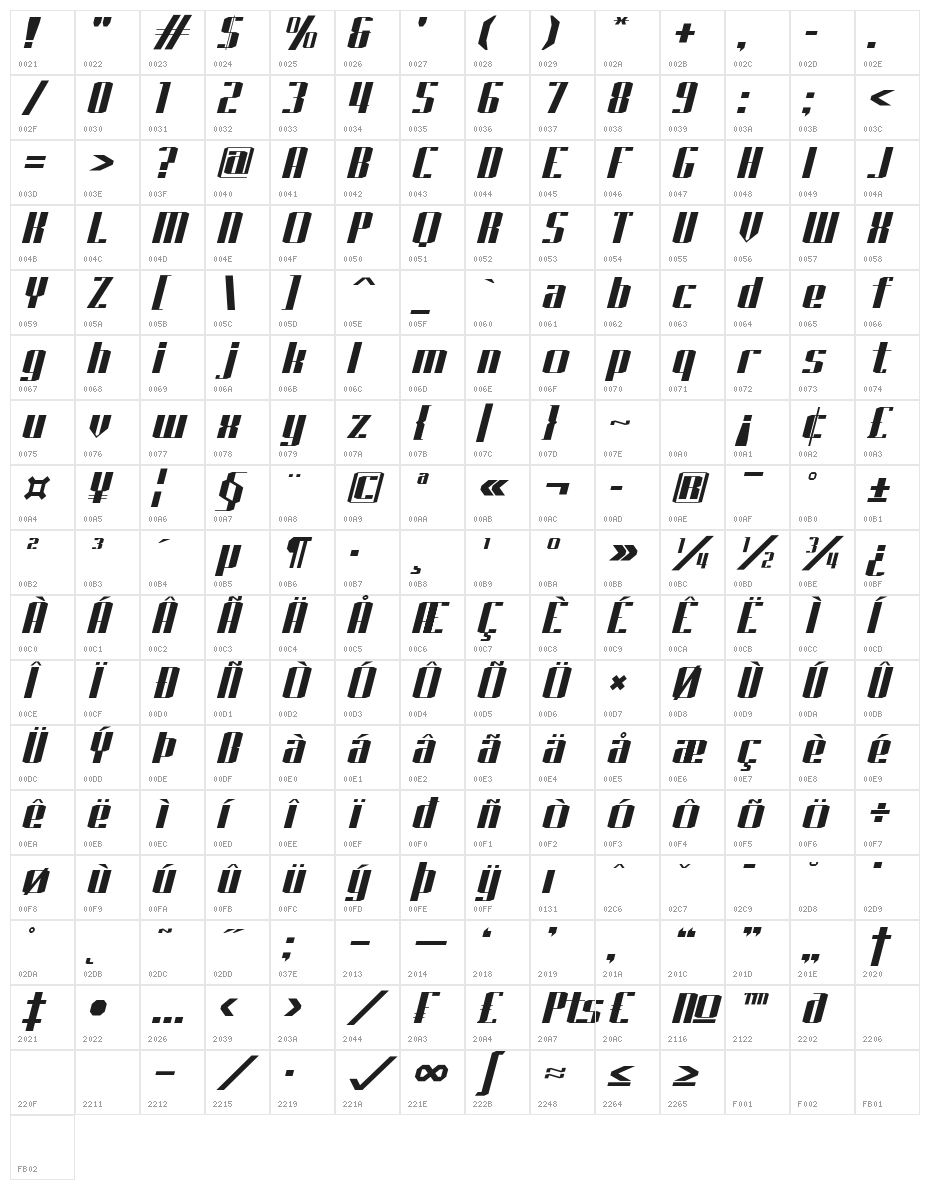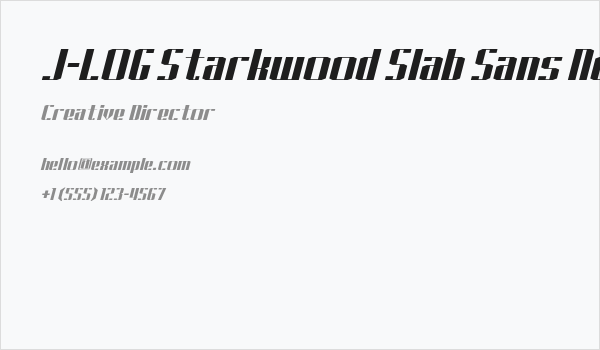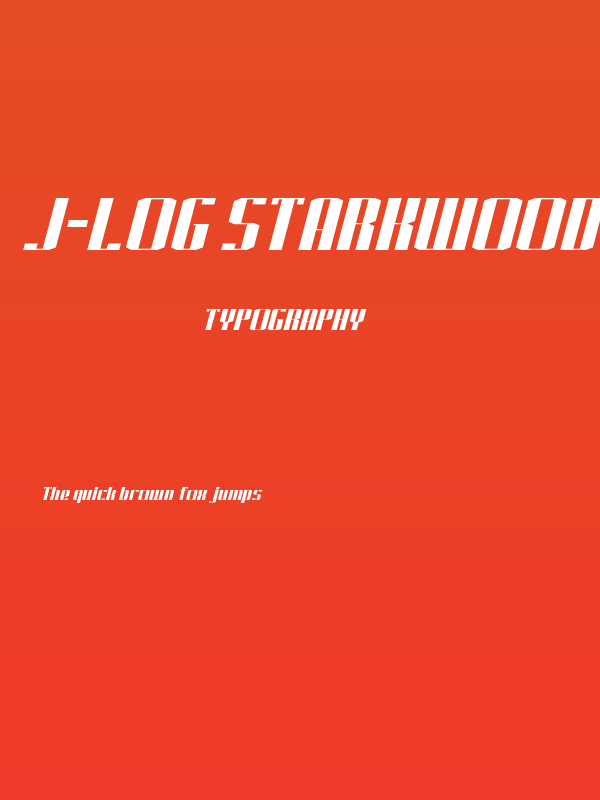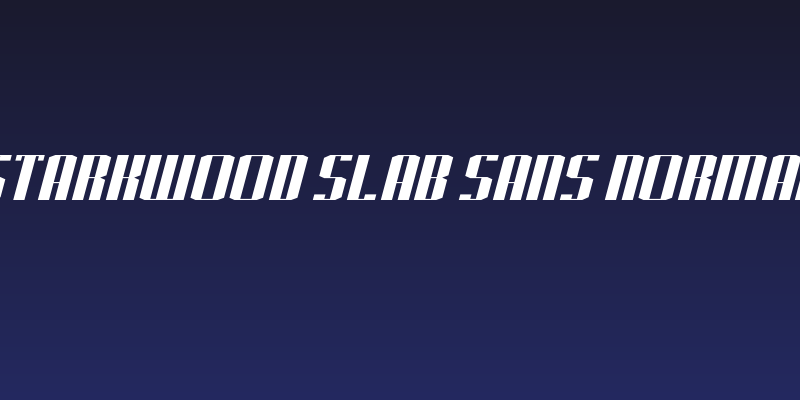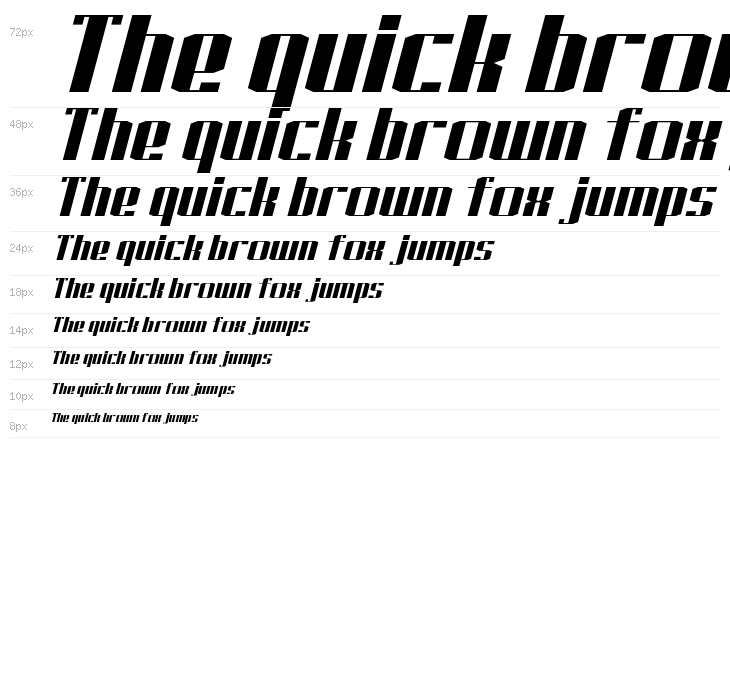
J-LOG Starkwood Slab Sans Normal Italic Font
J-LOG Starkwood Slab Sans Normal Italic Description
| Proposed Projects | Ideal for branding, posters, headlines, and any design requiring a bold, modern look. |